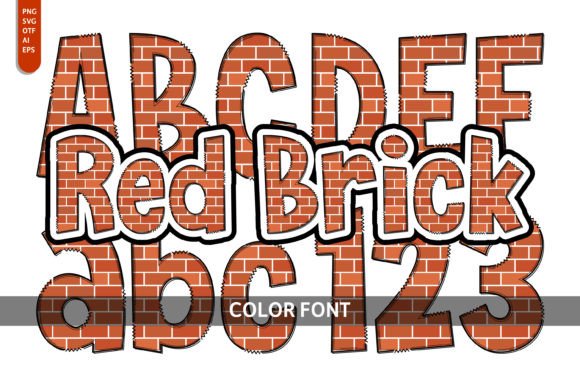
Introducing the Red Brick Font, a colorful font family designed by Imagination Switch. If you're looking for the best fonts for kids in Word, look no further! This vibrant and playful font is perfect for a wide range of creative projects, from children's books to posters, invitations, greeting cards, and more.
Designed with the aim to convey a playful and artistic feel, the Red Brick Font is the perfect choice to create captivating designs that will engage young audiences. Imagine the joy on a child's face as they explore a book with whimsical and colorful fonts that bring the story to life! With this font, you can capture their imagination and make reading a truly immersive experience.
But that's not all - the Red Brick Font is not your ordinary font. It is a color font (Opentype-SVG), which means it adds an extra layer of visual impact to your designs. Compatible with popular design software like PhotoShop, Illustrator, Silhouette, and Inkscape, this font allows you to create stunning and eye-catching designs effortlessly.
So why wait? Take your designs to the next level with the Red Brick Font. Let your imagination run wild as you create captivating designs that will leave a lasting impression. Whether you're a professional designer or a creative enthusiast, this font is a must-have for anyone looking to make their projects stand out.